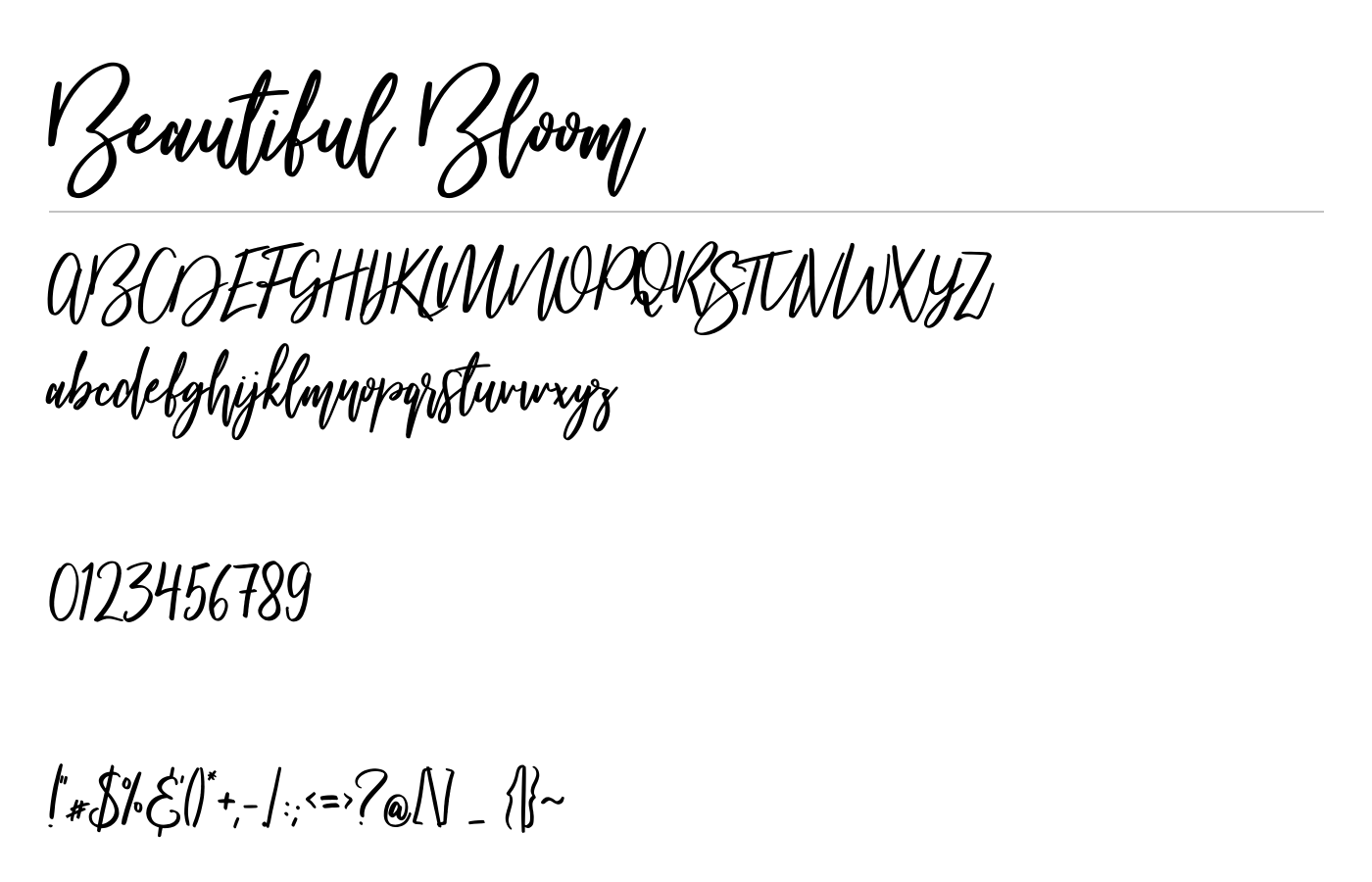
Beautiful Bloom is a lively and elegant script font with a naturally flowing, handwritten style that balances playful charm with modern sophistication. Its smooth, medium-weight strokes and varied letterforms make it perfect for adding a personal, warm touch to branding, invitations, and creative projects where a friendly yet refined look is desired. This font shines in headlines and logos where a stylish, approachable vibe is key.
Beautiful Bloom Font
About Beautiful Bloom Font
| Font family | Beautiful Bloom Font |
| Designer | Mats-Peter Forss / WornOutMedia |